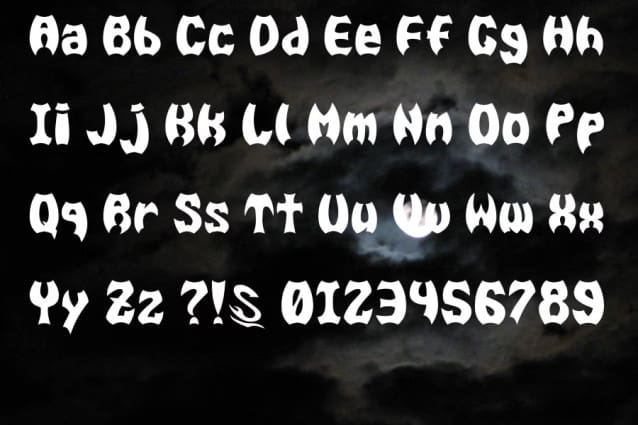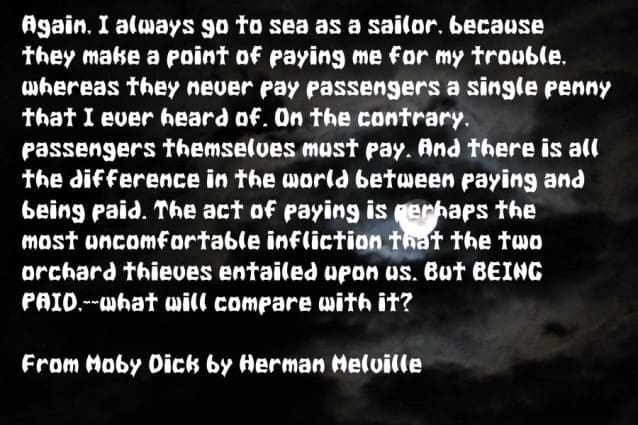
Bat Men__g Font
Bat Men__g Font is a dramatic, ornamental display typeface with irregular, jagged letterforms reminiscent of bats and gothic silhouettes. Each character features sharp points, exaggerated curves, and hollow eyes, creating an eerie, comic book vibe. The chunky strokes and heavy contrast ensure high impact on dark backgrounds, while its hand drawn forms add a playful horror aesthetic.
Because of its high contrast and decorative nature, BAT MEN__G is best suited for short headlines, titles, and logotypes rather than body text. Use it for Halloween posters, spooky movie titles, comic book covers, themed packaging, and eye catching social media graphics. The font’s unique character shapes add a sense of mystery and excitement to any design.
With its bold presence and whimsical horror appeal, BAT MEN__G brings an adventurous spirit to your creative projects. Pair it with simple sans or serif typefaces to balance readability and let its unique shapes command attention.